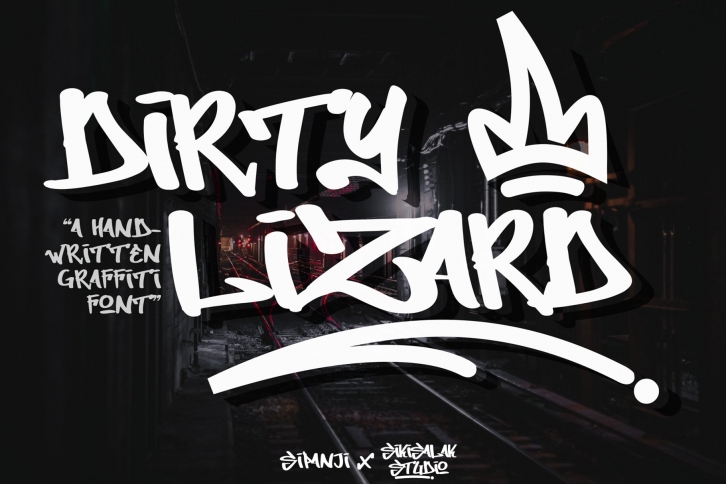
Dirty Lizard Graffiti Font Download
Dirty Lizard Graffiti is a great font that was designed by cikareotype. Imagine the amount of combinations you can create using this font! The archive is 19.40 MB and it was released on July 30, 2020. Dirty Lizard Graffiti looks beautiful on wedding invitations, greeting cards, logos, posters, labels, t-shirt designs, logos, business cards and is perfect for use in ink or watercolor works, fashion, magazines, packaging and food menus, children's books and more!